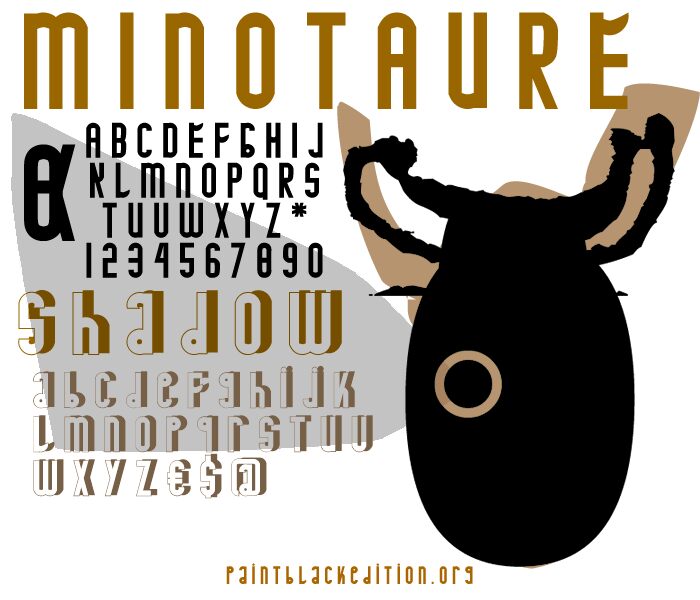
Minotaure Shadow by Paintblack is a free decorative display font with towering, compressed capitals and deep offset shadows. The white-faced letters shift between squared construction and blunt curves, with narrow inner openings that sharpen their poster-like impact. A few clipped cuts add a mischievous edge.
As a theatrical title treatment, it can turn horror posters and music packaging into stark, almost architectural images. On nightclub event graphics or graphic merchandise, the exaggerated depth lets the lettering become a bold emblem rather than neutral text. Designers working for alternative music, cult cinema, and experimental fashion audiences will find its narrow silhouette especially convincing.